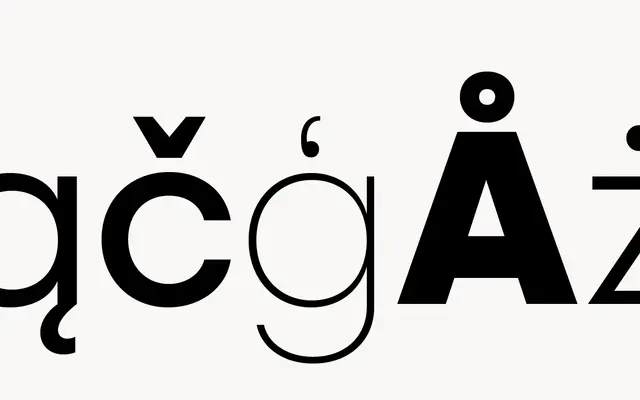
Alcyone
A humanist sans family from Thin to Black with matching italics, drawn for long-form text and data-heavy layouts.
A humanist sans by atipo foundry built around a calligraphic skeleton and a slight stroke contrast. The family runs from Thin through ExtraLight, Light, Regular, Medium, SemiBold and Bold up to Black, with a true italic for every weight, giving sixteen styles in total. OpenType features include tabular figures for tables, price lists and financial reports, plus pre-designed fractions, numerators, denominators, superscript, scientific inferiors and ordinals. Latin Extended language coverage is very wide, reaching across European, Pacific and indigenous American languages.
A humanist sans with a calligraphic skeleton, modulated stroke and a true italic. Built as a workhorse text family with nine weights and matching italics across the range.